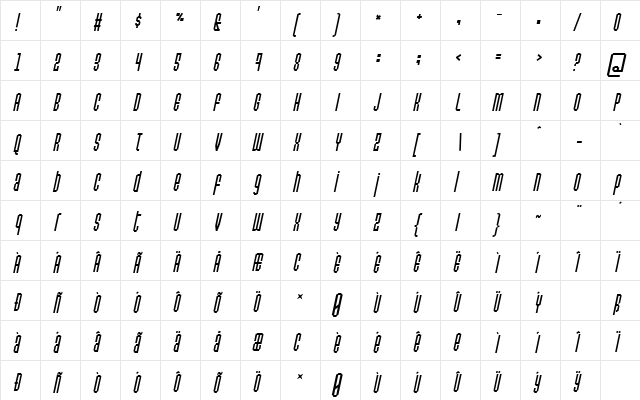
Permanent daylight Italic Regular
Design Context for Permanent daylight Italic Typeface
Permanent daylight Italic takes a measured approach to typography — its balanced proportions and neutral character make it a reliable workhorse for both digital and print work. The dynamic lean of this cut emphasises speed and emphasis in any layout. The delicate stroke weight brings airiness and refinement to layouts.